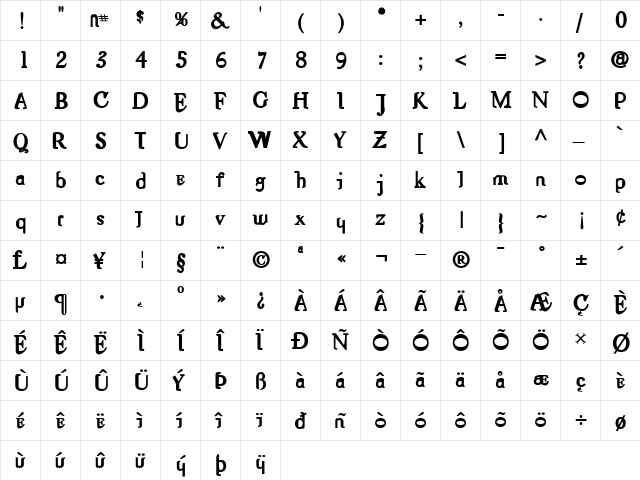
Nameless Bold
Design Context for Nameless Typeface
Nameless offers clean, dependable letterforms without strong stylistic allegiance, making it a practical choice for designers who need flexibility. Its bold stroke weight gives it real presence on the page.